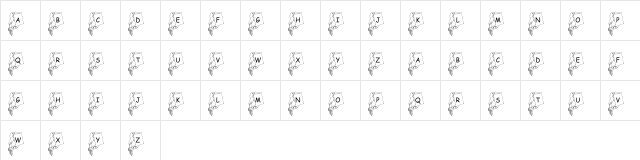
pf_cockatoo Regular Free Font
pf_cockatoo Regular
Design Context for pf_cockatoo
pf_cockatoo is a composed and adaptable typeface that performs quietly and consistently across a wide range of design contexts.